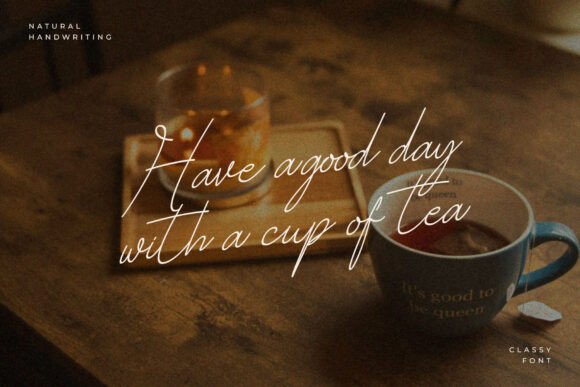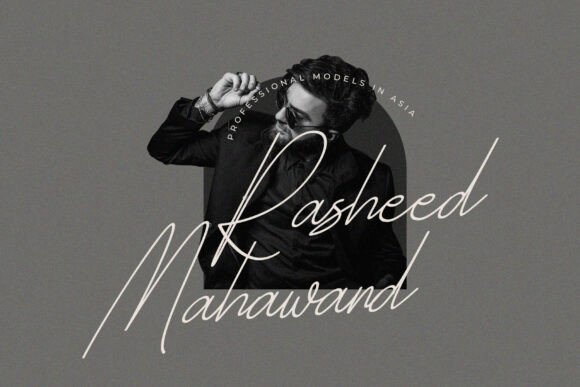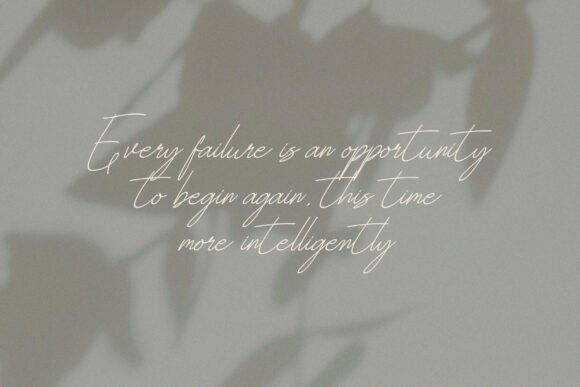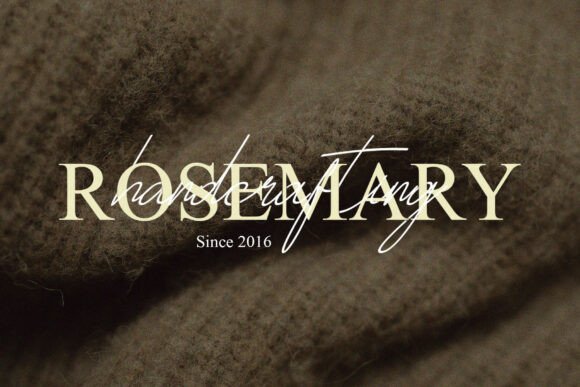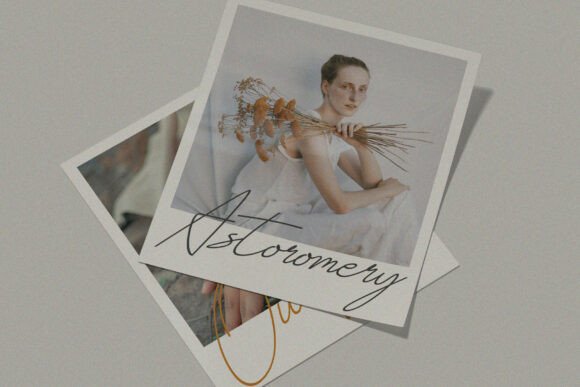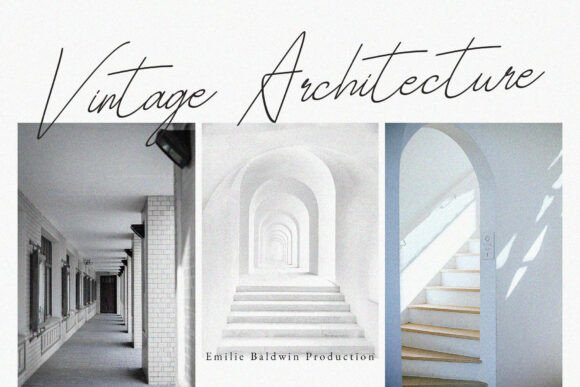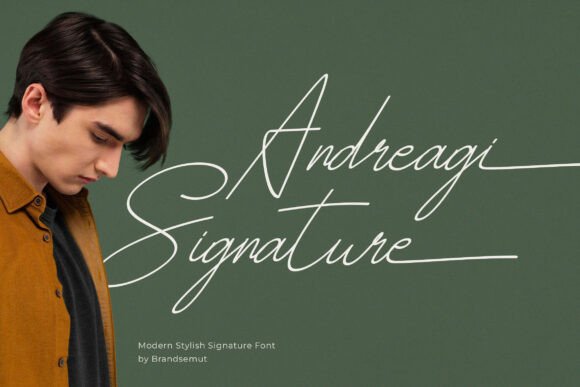
Introducing the Elegant Andreagi Signature Font
Have you ever been in the middle of a design project, everything is going smoothly, and then you hit a roadblock – finding the perfect font? I certainly have, and it’s frustrating. Recently, I was working on a branding project for a luxury client, and I needed a font that exuded elegance and sophistication. That’s when I stumbled upon the Andreagi Signature Font, and it was love at first sight! 💕
The Perfect Font for Your Design Needs
The Andreagi Signature Font is an elegant and stylish handwritten script that can elevate your designs to the next level. This font comes with a full set of lowercase and uppercase letters, multilingual support, numerals, and punctuation, making it incredibly versatile for various design projects.
Here’s what I love about the Andreagi Signature Font:
- ✨ Elegant and sophisticated design
- ✅ Extensive character set, including multilingual support
- ✅ Great for both digital and print designs
- ✨ Highly legible, even at smaller font sizes
However, there are a few minor quirks to consider:
- ⚠️ Some users might find the font a bit too ornate for certain projects
- 🤔 Limited availability of stylistic alternates, but still offers great flexibility
The Designer Inspiration Behind Andreagi Signature Font
The Andreagi Signature Font was inspired by the classic calligraphy of Italy. The designer aimed to create a font that captures the essence of Italian elegance and sophistication, making it perfect for luxury brands, wedding designs, and high-end projects.
Q: What languages does the Andreagi Signature Font support?
A: The Andreagi Signature Font offers multilingual support, making it suitable for designs in various languages.
Q: Is the Andreagi Signature Font suitable for body text?
A: While it’s primarily designed for headings and titles, the font’s legibility makes it possible to use for short paragraphs of body text.
Q: Does the font include stylistic alternates?
A: Yes, the Andreagi Signature Font offers some stylistic alternates and glyphs, accessible through OpenType features in compatible software.